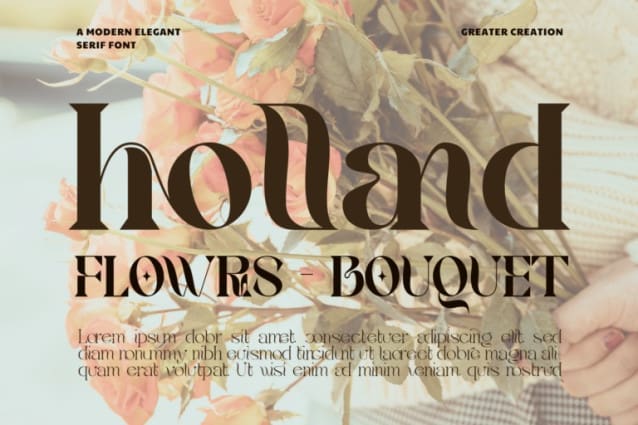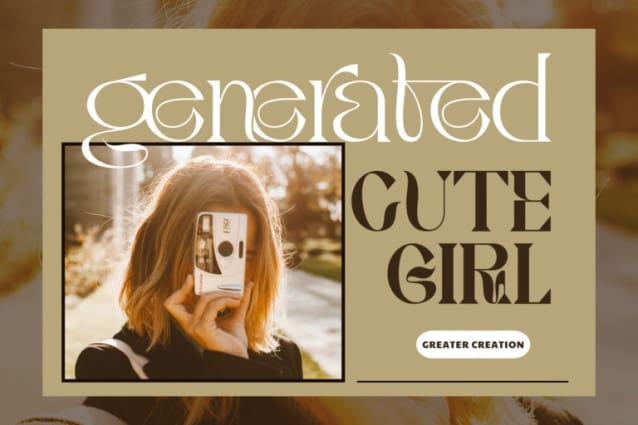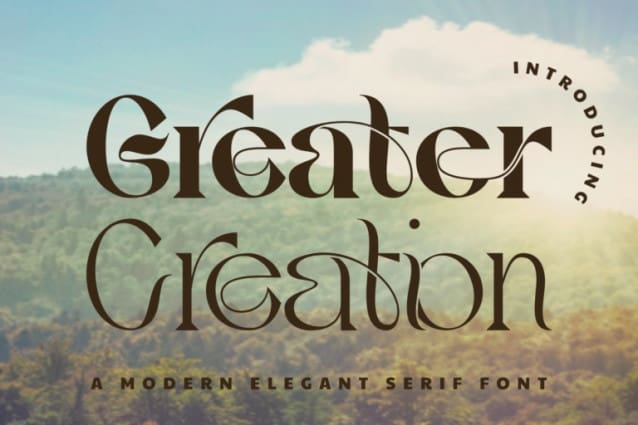
Greater Creation Font
Greater Creation Font is a refined display serif font that combines classic serif elements with contemporary design. Perfect for elegant and sophisticated projects, it adds a touch of modernity to editorial layouts, branding, and web designs. Already matched up and ready to be used together for your next design! For those of you who are needing a touch of elegant, stylish, classy, chic and modernity for your designs, this font was created for you!
Greater Creation was built with OpenType features and includes 100 ligatures, alternate, numbers, punctuation, and it also supports other languages.